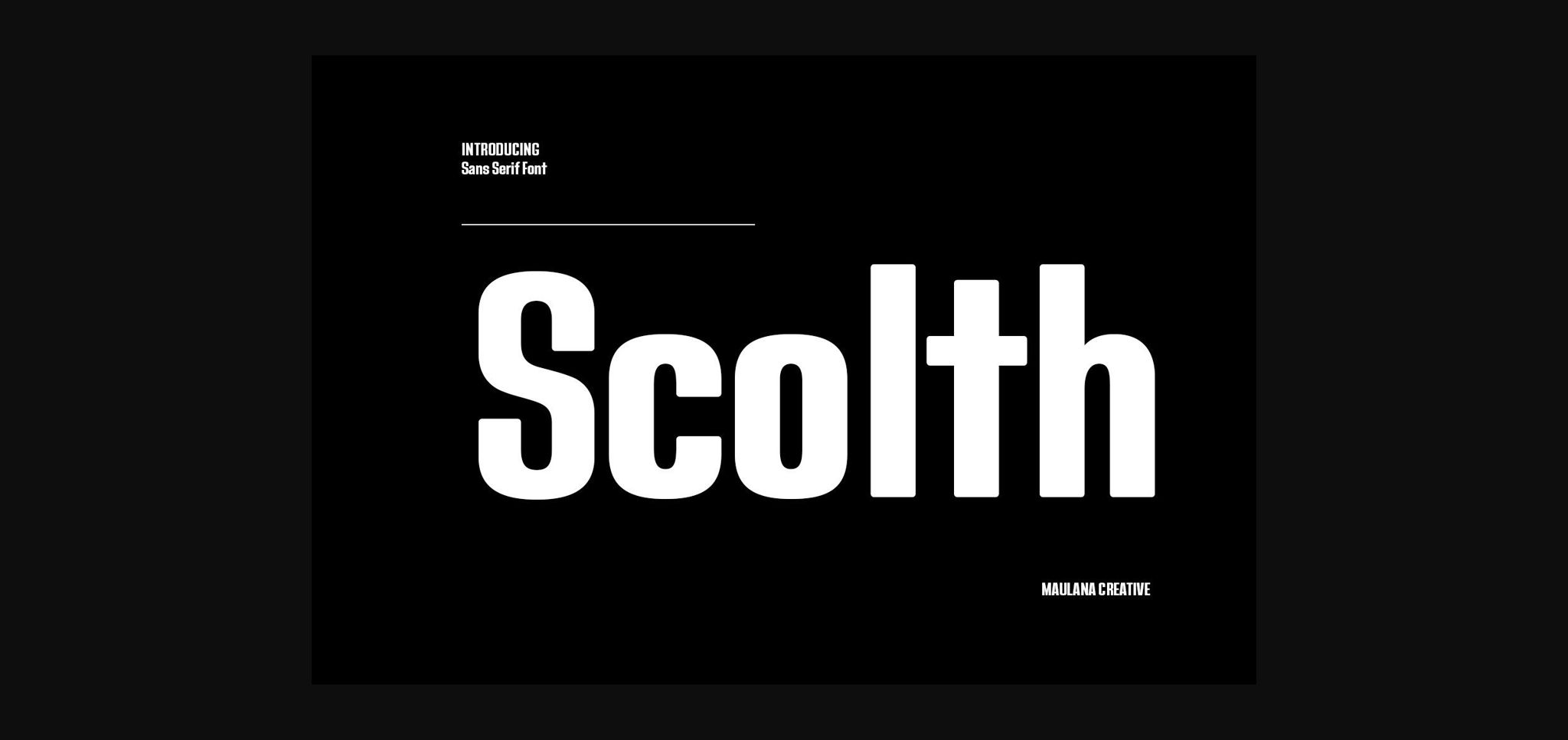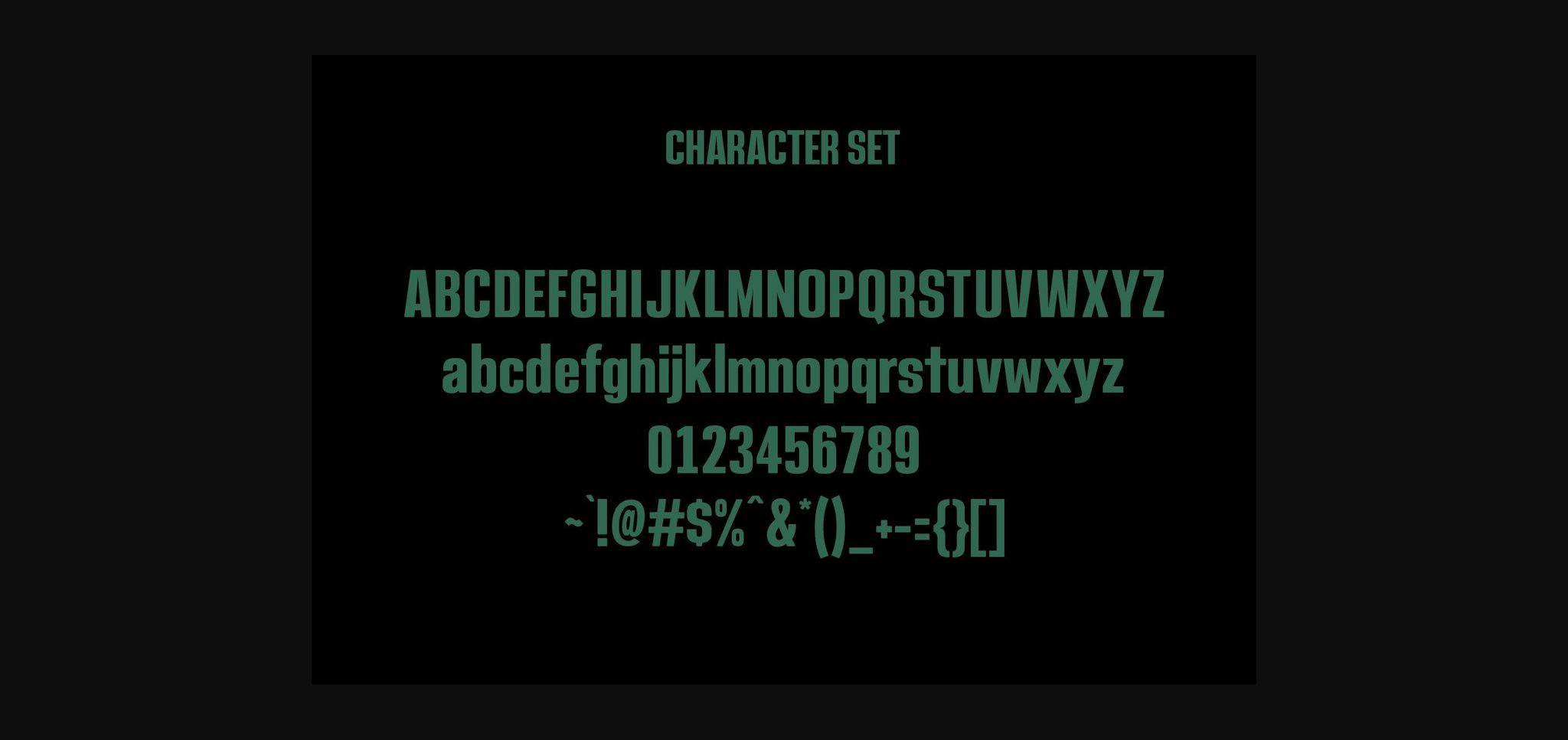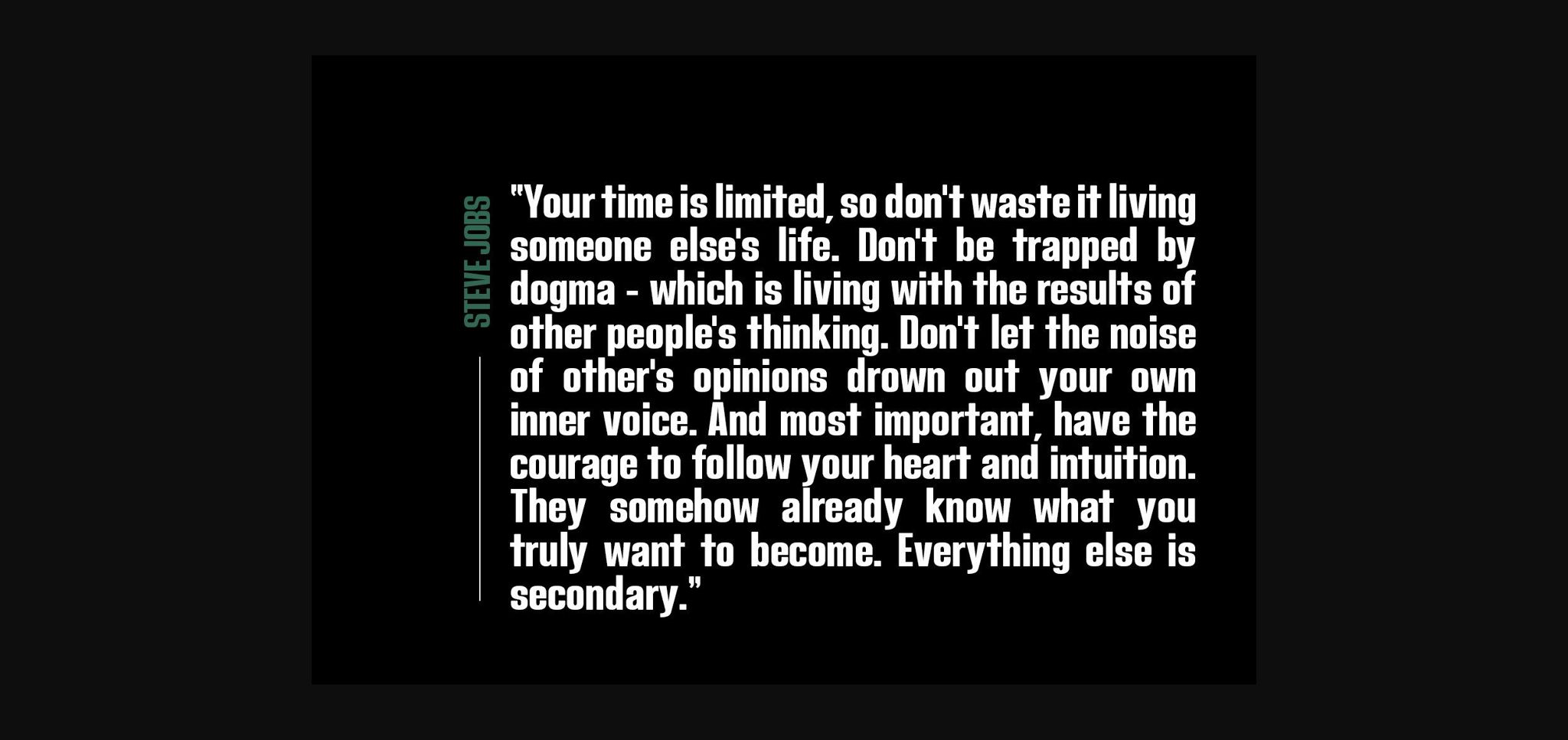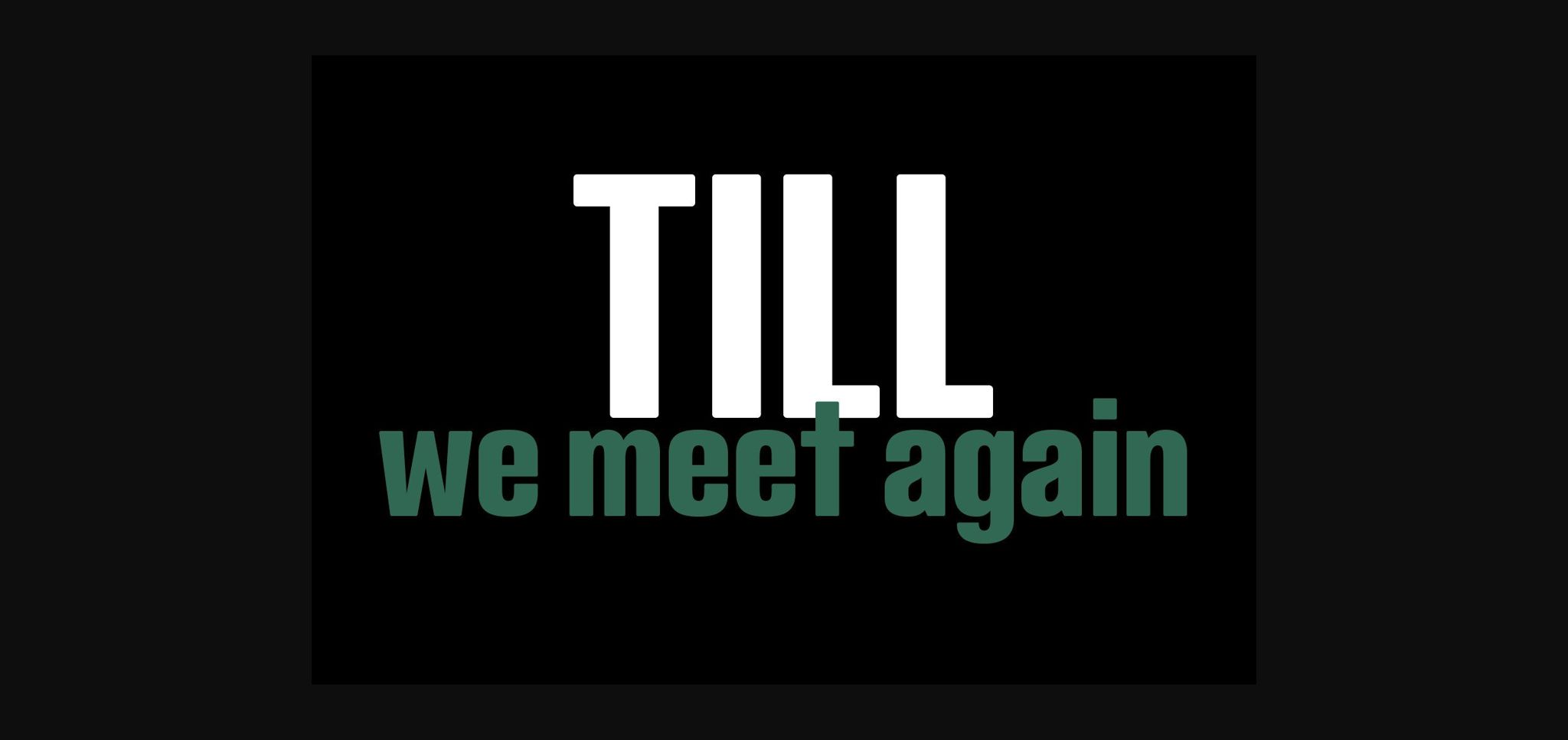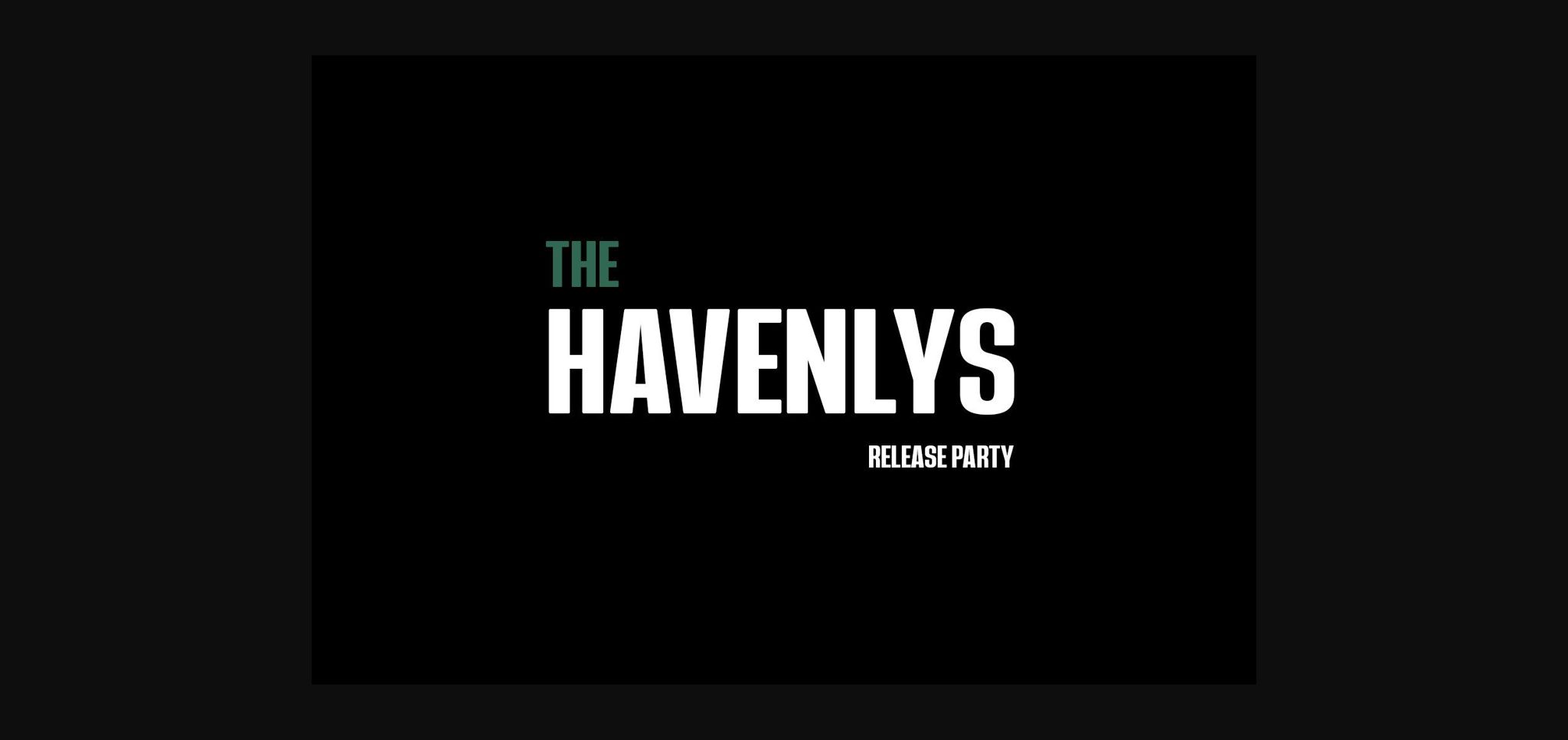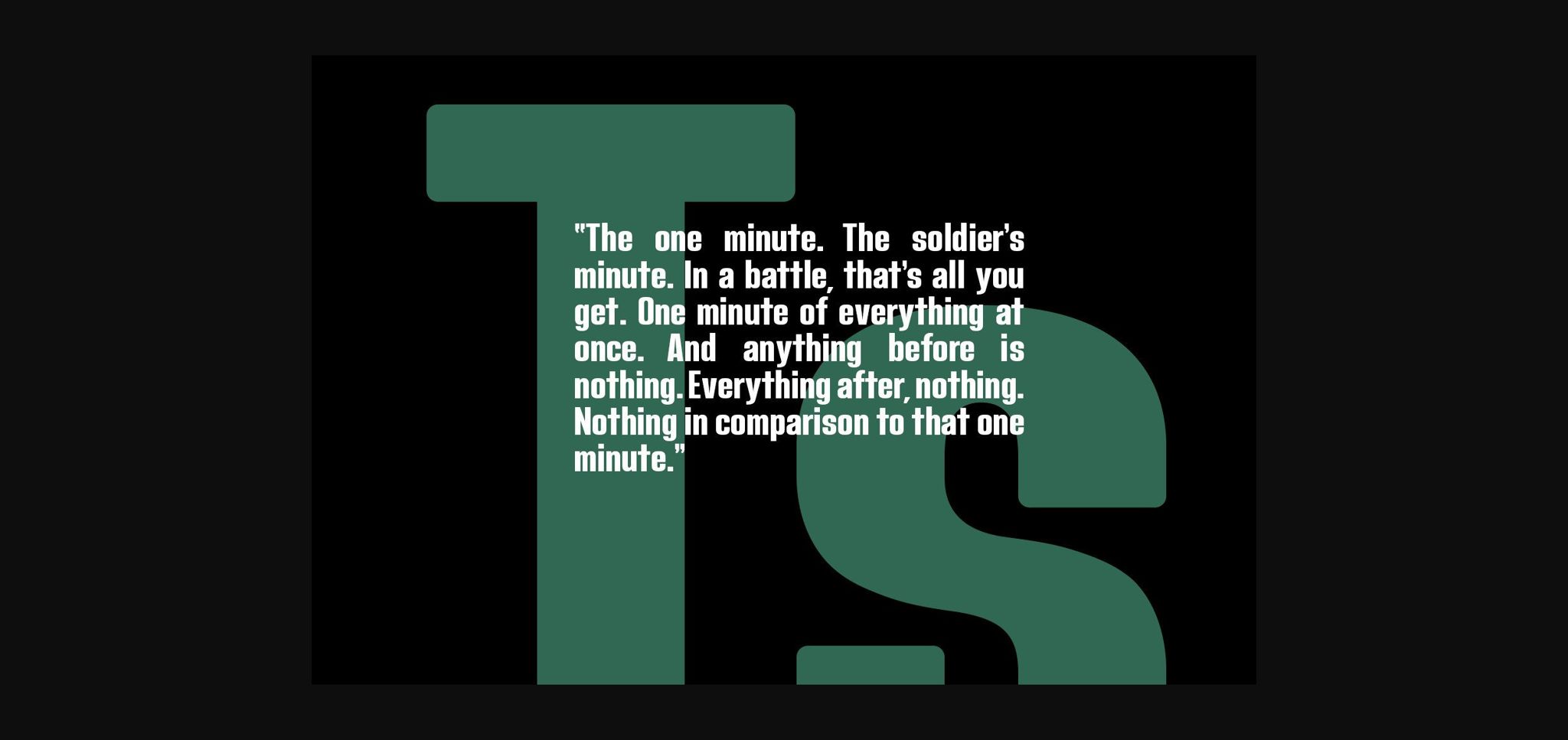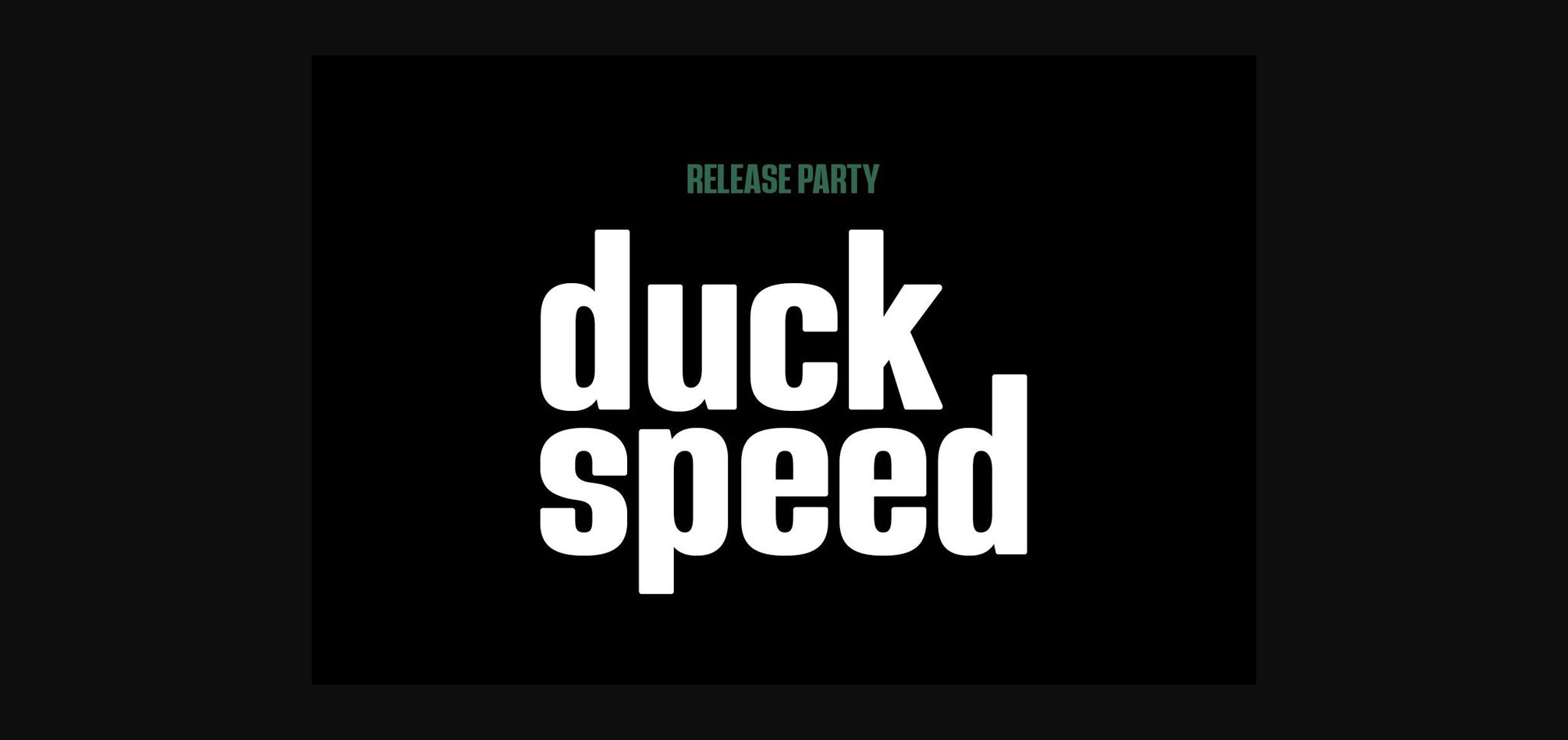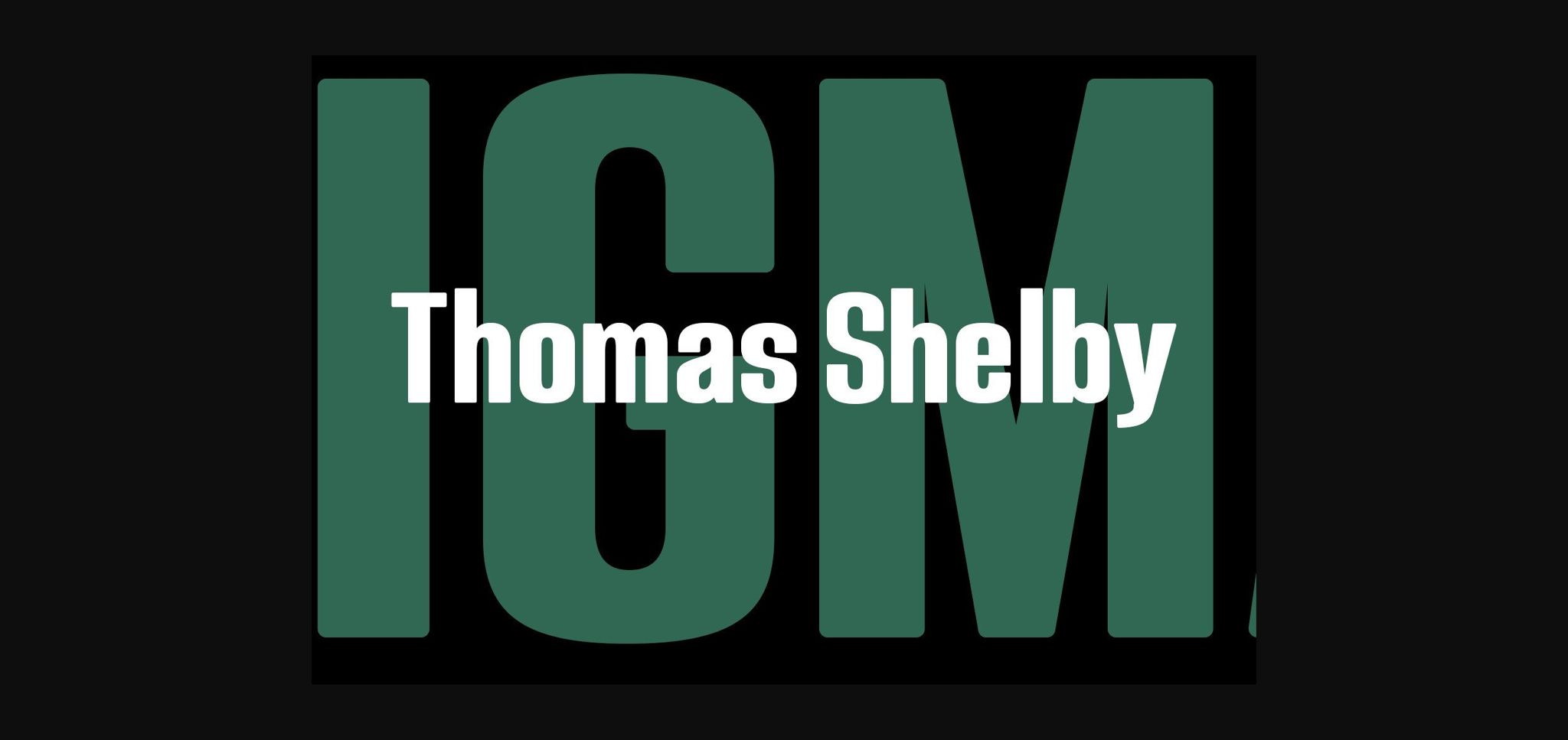
HomeSans Serif FontsScolth Font Sans Serif Fonts Scolth Font FacebookXPinterestWhatsApp 1 of 10 ... Scolth Font Poster 2... Scolth Font Poster 3... Scolth Font Poster 4... Scolth Font Poster 5... Scolth Font Poster 6... Scolth Font Poster 7... Scolth Font Poster 8... Scolth Font Poster 9... Scolth Font Poster 10... About Scolth Font Scolth is a classic and bold sans serif font. Incredibly versatile and stylish, this typeface will look great in a wide variety of contexts. DOWNLOAD NOW People also explored Callephane Font Moonlight Font Samutin Font Deanisa Font George Font Rochella Font Sariez Sweet Dino Font Sophia Marilyn Font 405 0 TagsScolthScolth Font Previous articleFootball FontNext articleRocklyn Font LEAVE A REPLY Cancel reply Comment: Please enter your comment! Name:* Please enter your name here Email:* You have entered an incorrect email address! Please enter your email address here Website: Save my name, email, and website in this browser for the next time I comment. Personal Use Free Clumed Personal Use Free Read more about this font Martani Personal Use Free Read more about this font The Relapse Personal Use Free Read more about this font Zero Hour Personal Use Free Read more about this font BLOG Fonts That Capture the Spirit of New York City New York City is more than just a place—it’s an experience, a rhythm, a visual language... How to Install and Use Fonts on Windows, macOS, and Web Projects To increase your work productivity, choose the most readable fonts. Best Fonts for T-Shirt Design – Top 2025 Picks